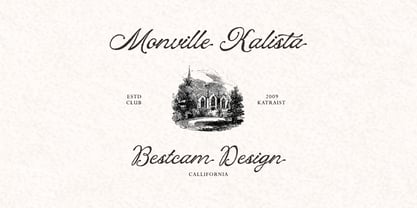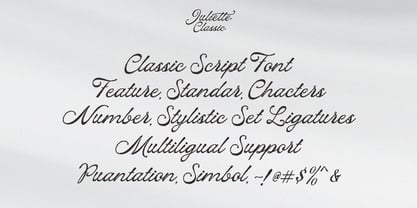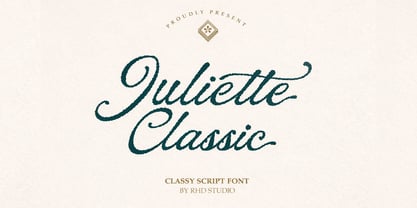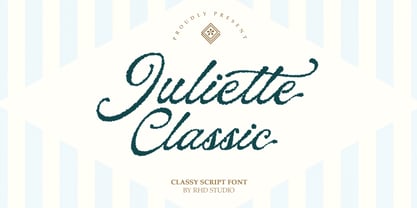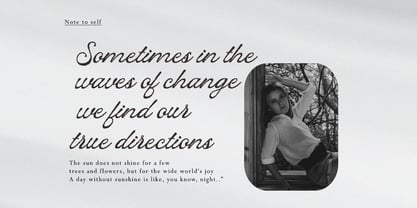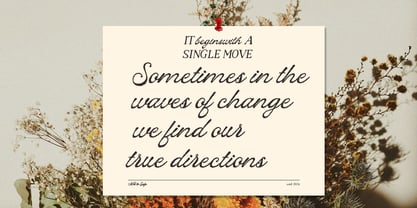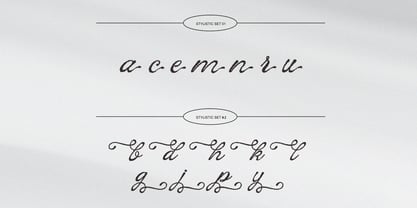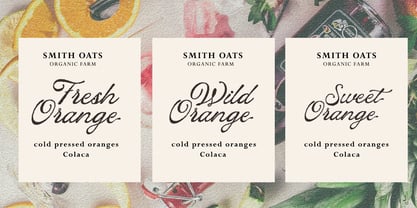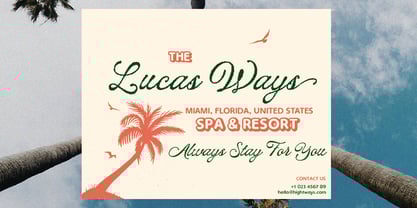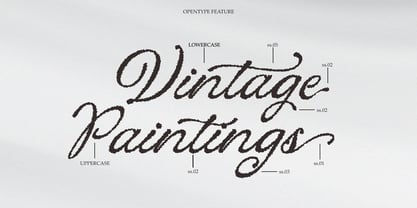
Juliette Classic
by Rhd Studio
The Juliette Classic Font Family was designed by Rahmad Rizky and published by Rhd Studio. Juliette Classic contains 1 styles. More about this family
Juliette Classic – Classy Script Font Juliette is an elegant script font infused with a captivating tropical vibe. Inspired by the beauty of beaches, the rhythm of ocean waves, and the spirit of endless vacations, this font combines a luxurious feel with a relaxed charm. With its smooth curves and artistic flow, Juliette is perfect for branding, logos, wedding invitations, product packaging, and other creative projects.